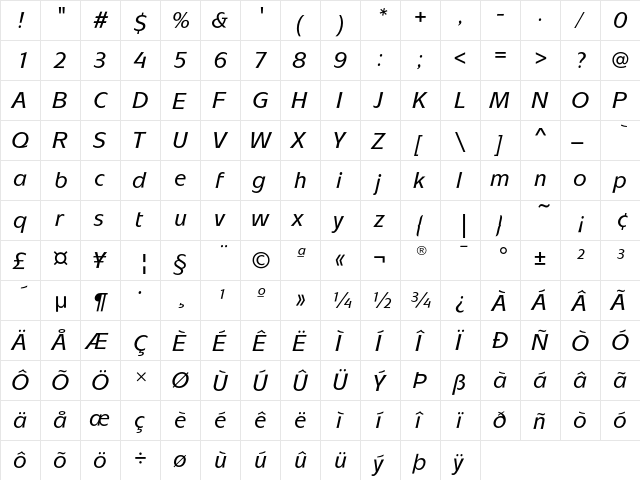
MixageEF MediumItalic
Design Context for MixageEF Typeface
MixageEF takes a measured approach to typography — its balanced proportions and neutral character make it a reliable workhorse for both digital and print work. The slanted form adds forward momentum and visual energy.
Pro Tip: Try MixageEF for annotation and caption copy alongside an upright companion — the contrast in angle creates a dynamic but ordered typographic system.